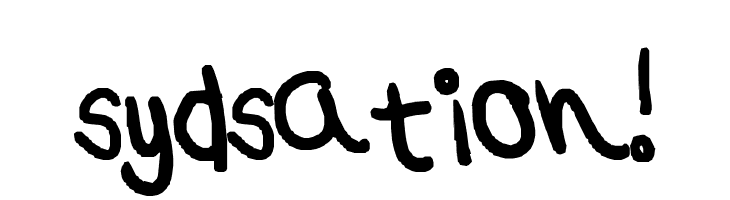
A playful, bold, and decorative font with high contrast and unique drop-like embellishments.
A whimsical, decorative font with playful ink-like patterns.
A bold, distressed font with a grunge texture and rugged appearance.
A decorative dingbat font with harvest-themed icons.
A bold, distressed font with a vintage, rugged texture.
A bold, distressed font with a rugged, vintage feel.
A bold, dynamic font with thick strokes and a slight slant, perfect for impactful statements.
من المفضلات مؤخرًا Kingthings Lickorishe, Kingthings Inkydinky, Project Z, my normal handwriting and KR Harvest Dings. توازن هذه الخطوط بين الوضوح والشخصية وتناسب العلامات التقنية، وتصاميم التحرير، ومرئيات الشبكات الاجتماعية.